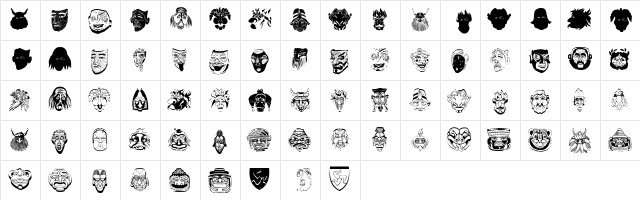
MaskenballTwo Regular Font Preview
MaskenballTwo Regular
Design Context for MaskenballTwo Typeface
MaskenballTwo is a composed and adaptable typeface that performs quietly and consistently across a wide range of design contexts.